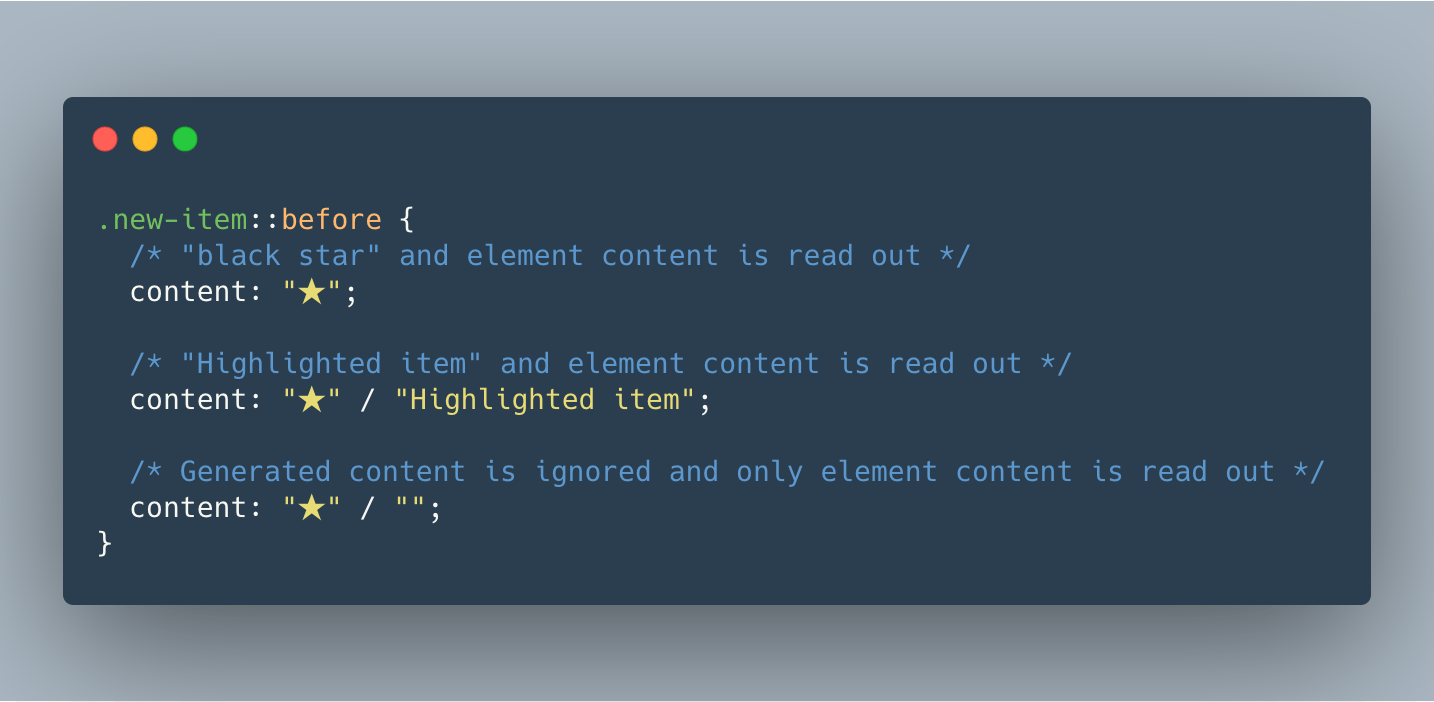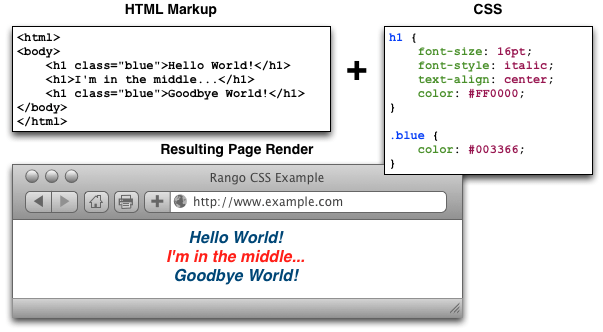
They create a modern and minimalistic look. This font is popular for branding, signage, and online applications.
They create a modern and minimalistic look. They create a sense of formality and elegance. Since not all fonts are available on all computers (there are thousands of fonts, and most are not free), css provides a system of fallbacks. Font squirrel is another website with free fonts.
When you have found/bought the font you wish to use, just include the font file on your web server, and it will be automatically downloaded to the user when needed. On this page i won't show any tricks, but i will show the range of font variations that css allows. 14 fonts similar to helvetica. The only two that are required are size and.
Serif fonts have a small stroke at the edges of each letter. The only two that are required are size and. They create a sense of formality and elegance. On this page i won't show any tricks, but i will show the range of font variations that css allows. Css Icon List at Collection of Css Icon List free for.
This font is popular for branding, signage, and online applications. Font awesome, typekit, typography, jetbrains mono, and heroicons are the most popular alternatives and competitors to google fonts. Find similar or alternative fonts; Since not all fonts are available on all computers (there are thousands of fonts, and most are not free), css provides a system of fallbacks. CSS Font Stack Alternative Schriften im Webdesign klug einsetzen.
Sometimes you found the perfect font yet you don`t have the budget for it. Iconsvg is a simple tool to find, customize and generate common svg icons for your project. We have indexed 820,000 fonts both commercial and free from all the major foundries big and. In css there are five generic font families: HTML or CSS which is important to learn first? voidCoders.
Here are some of the 12 best free icon font pack alternatives of fontawesome for your convenience, you can download and use for free. Helvetica is an incredible font with a great history. Find more helvetica alternatives in this article: Serif fonts have a small stroke at the edges of each letter. When do you use inlineblock? CSSTricks.
Here at what font is we have the perfect tool for that. Font features or variants refer to different glyphs or character styles contained within an opentype font. Best web safe fonts to use with css. Comic sans ms (cursive) 1. CSS Specific fonts for different sizes Stack Overflow.
You can get vector icons and social. Completely open source, mit licensed and built by the ionic framework team. One thing that differentiates material icons from font awesome is the use of ligatures. Web fonts allow web designers to use fonts that are not installed on the user's computer. Alternative text for CSS generated content Bram.us.
These are all referred to as opentype features, and are. They create a sense of formality and elegance. You can get vector icons and social. Font css style generator is an online tool for creating font style css easily. change color in animation css Code Example.
It allows inserting an icon with its name instead of the complex hex code. They create a sense of formality and elegance. Premium designed icons for use in web, ios, android, and desktop apps. Futura is an intense, geometric typeface and one of the most recognisable. Customize Visual Studio Code for Multiple Fonts and styles..
Change the font size by dragging the slider or you can directly add the font size. That way even if the font is missing or corrupt, the browser will default to an acceptable alternative. On this page i won't show any tricks, but i will show the range of font variations that css allows. It allows inserting an icon with its name instead of the complex hex code. There’s more to the CSS rem unit than font sizing CSSTricks.
Find more helvetica alternatives in this article: Iconsvg is a simple tool to find, customize and generate common svg icons for your project. After the color, the font is probably the most basic property of a page. Serif fonts have a small stroke at the edges of each letter.
They Create A Modern And Minimalistic Look.
There are two types of font family names: Comic sans ms (cursive) 1. Or you are using it only once. You can get vector icons and social.